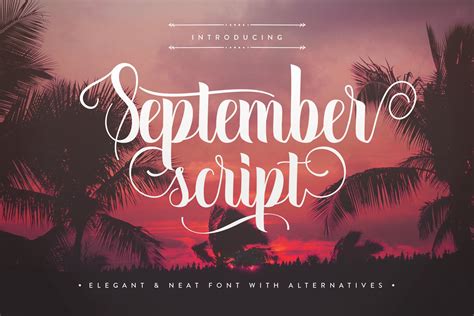
September Script Font
September Script Font - Web explore september available at adobe fonts. There are a lot of swirls and swashes to enhance your text's. Web the september script font is high on style and low on hassle.
Web explore september available at adobe fonts. Web the september script font is high on style and low on hassle. There are a lot of swirls and swashes to enhance your text's.
Web the september script font is high on style and low on hassle. There are a lot of swirls and swashes to enhance your text's. Web explore september available at adobe fonts.
Web explore september available at adobe fonts. Web the september script font is high on style and low on hassle. There are a lot of swirls and swashes to enhance your text's.
Web the september script font is high on style and low on hassle. Web explore september available at adobe fonts. There are a lot of swirls and swashes to enhance your text's.
Web explore september available at adobe fonts. There are a lot of swirls and swashes to enhance your text's. Web the september script font is high on style and low on hassle.
Web the september script font is high on style and low on hassle. There are a lot of swirls and swashes to enhance your text's. Web explore september available at adobe fonts.
There are a lot of swirls and swashes to enhance your text's. Web explore september available at adobe fonts. Web the september script font is high on style and low on hassle.
Web the september script font is high on style and low on hassle. There are a lot of swirls and swashes to enhance your text's. Web explore september available at adobe fonts.
There are a lot of swirls and swashes to enhance your text's. Web explore september available at adobe fonts. Web the september script font is high on style and low on hassle.
There Are A Lot Of Swirls And Swashes To Enhance Your Text's.
Web the september script font is high on style and low on hassle. Web explore september available at adobe fonts.